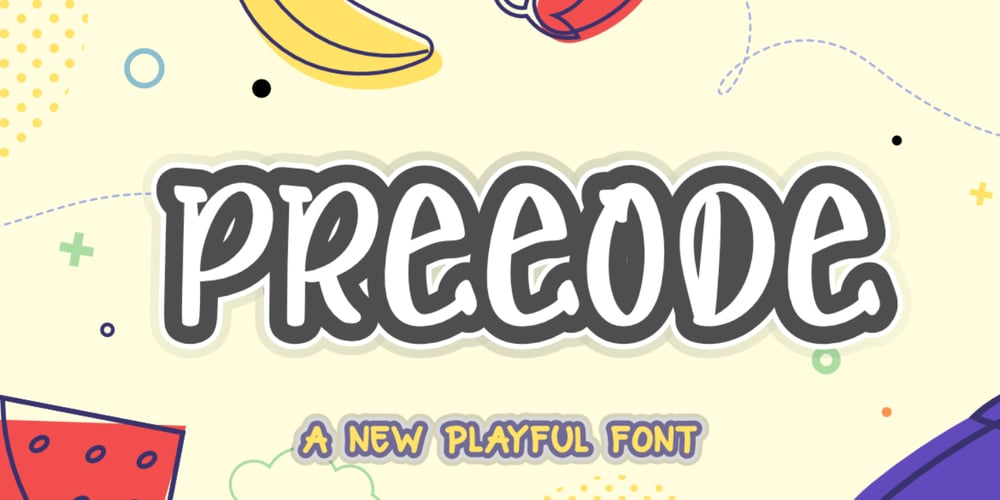
Preeode
Preeode Font Family was designed by Bayu Aji Fais Mursid and published by Bayuktx. Preeode contains 1 styles and family package options. Hello,Thank you for visiting my products, we will give you the best choice.Preeode Playful Font, This font is made with a high premium quality level which you can use as flyers, quotes, posters, banners, packaging, merchandise, logotypes and much more.FEATURES :* Uppercase* Number* Punctuation* Multilingual* PUA Encode* OpentypeFILES INCLUDED :* Preeode. 1* Preeode. 2Thank you